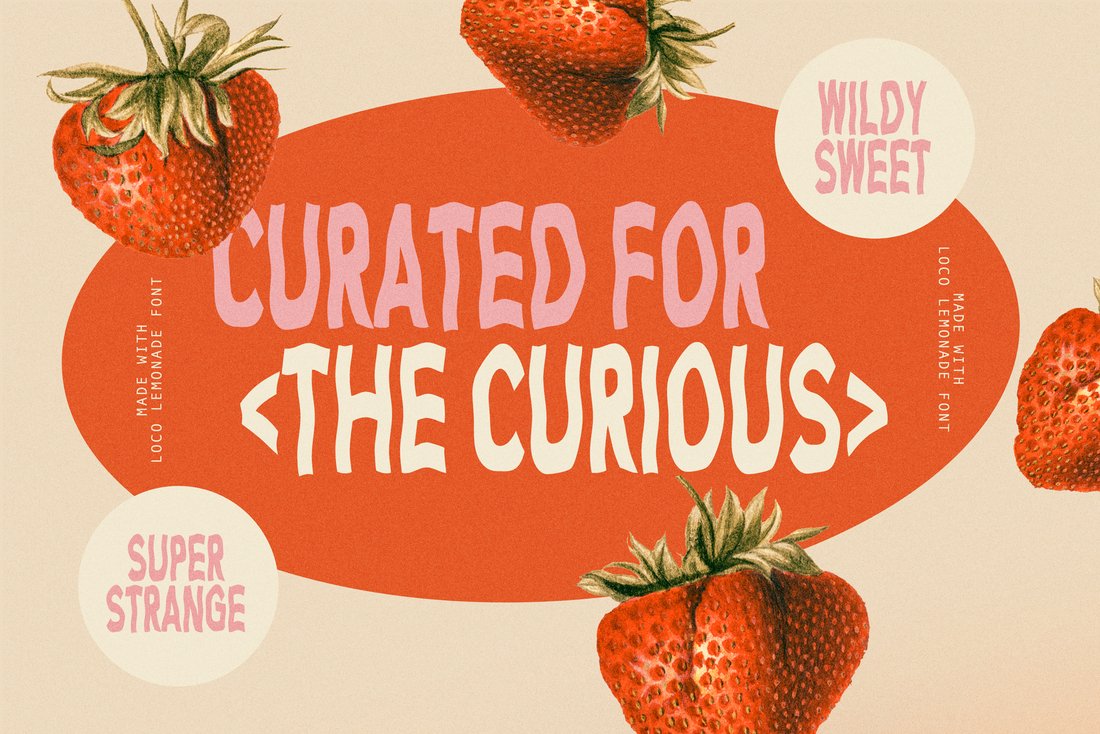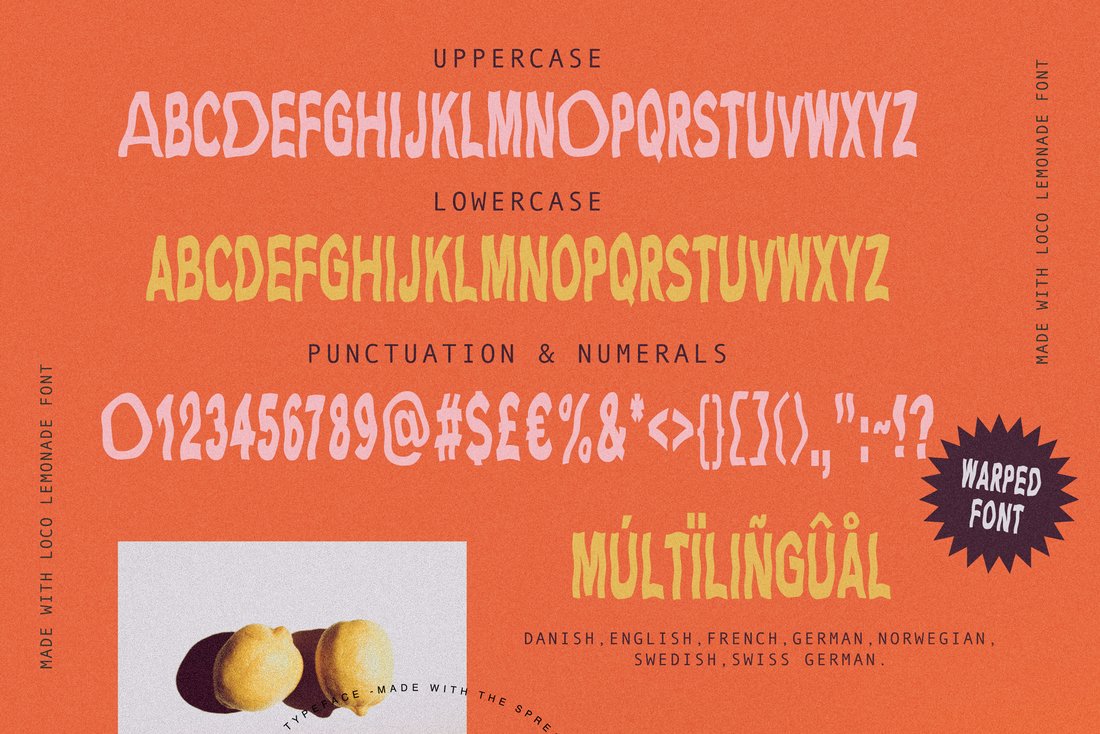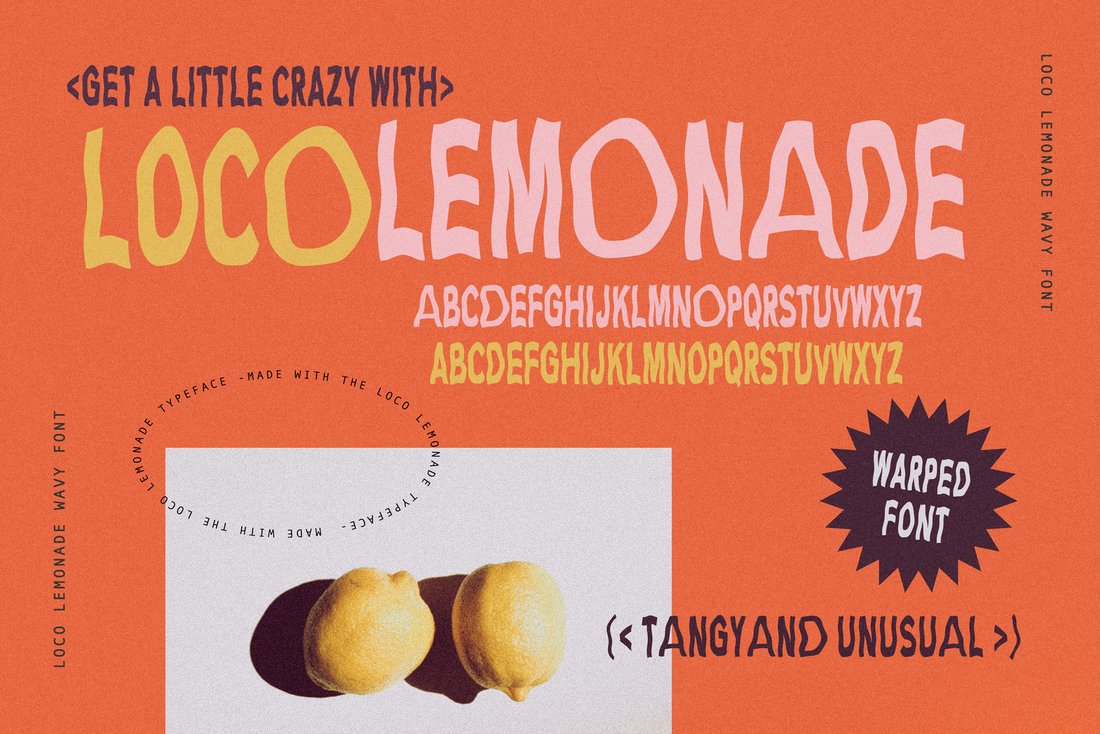
Loco Lemonade Font
Loco Lemonade Font by Nicky Laatz
Get a little wild with LocO LemOnade Font! A little wacky and warped, but great for adding an unexpected creative twist to your designs. Outlandishly trendy and wildly wonderful - LocO LemOnade is an all -caps font - with even more playfulness: a varying width O, A and D depending on whether you type with upper or lowercase :)LocO LemOnade Font comes in two versions - solid and outline, to give you extra design options.
LocO LemOnade is Multilingual & currently supporting: English, Danish, French, German, Swiss and Norwegian and Swiss German.